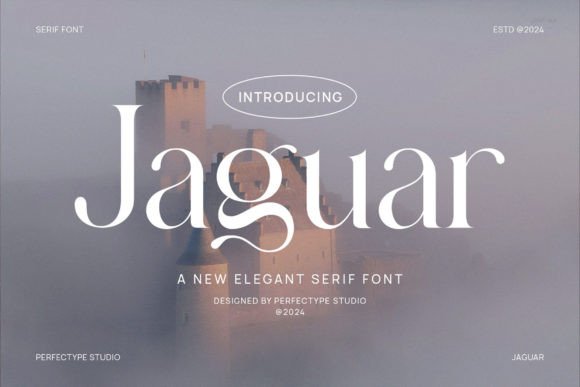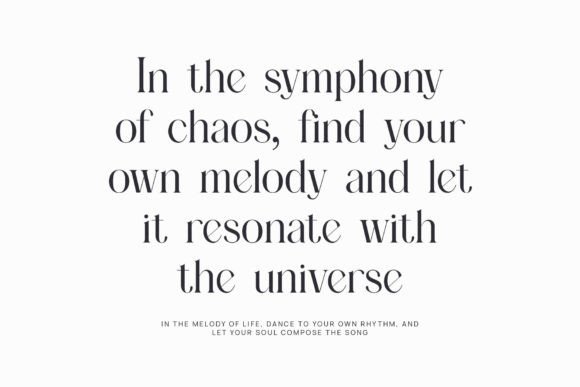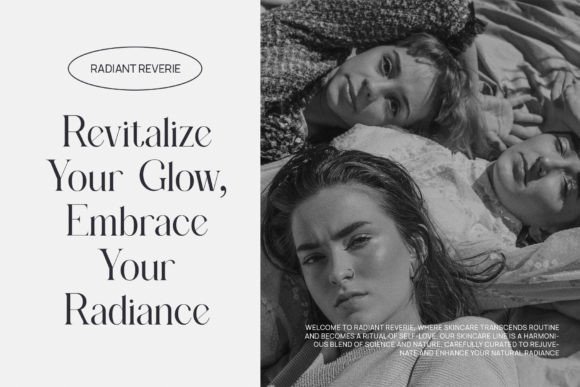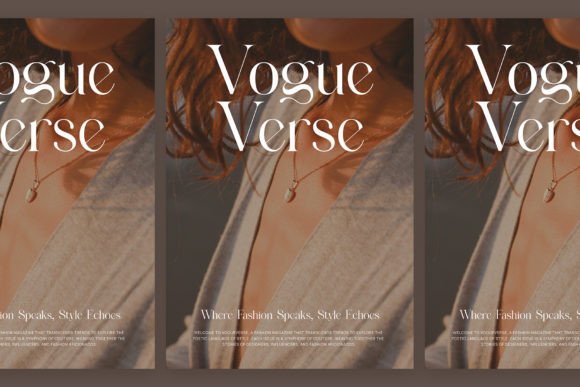
Jaguar Font
About the Jaguar Font
Introducing the Jaguar Font, a beautifully crafted typeface designed to elevate your creative projects. Elegant serif typeface combined with a classy and modern style. This type of font is very suitable for your various needs such as branding projects, logos, wedding designs, social media posts, advertisements, product packaging, product designs, labels, photography, watermarks, invitations, stationery, and any project, created with high level of readability.
Jaguar Font excels in applications requiring a touch of sophisticated elegance. Headlines, logos, and short-form text benefit most from its refined serifs. It’s ideal for branding projects aiming for a premium or classic feel, particularly within the fashion, luxury goods, or beauty sectors. Avoid using Jaguar for large blocks of body text or UI elements; its elegance might hinder readability in extended passages.
Pairing Jaguar with a clean sans-serif like Open Sans for body text provides excellent contrast and readability. For a more playful feel, a script font such as Great Vibes could complement its formal structure. A geometric sans-serif, such as Futura, would create a modern, balanced aesthetic, suitable for minimalist designs.
The font projects a confident, refined personality. Its classic elegance works best for brands that value sophistication and timeless style. Overuse might lead to a feeling of stuffiness; thoughtful application is key to leveraging its unique visual appeal.
Jaguar Font Example